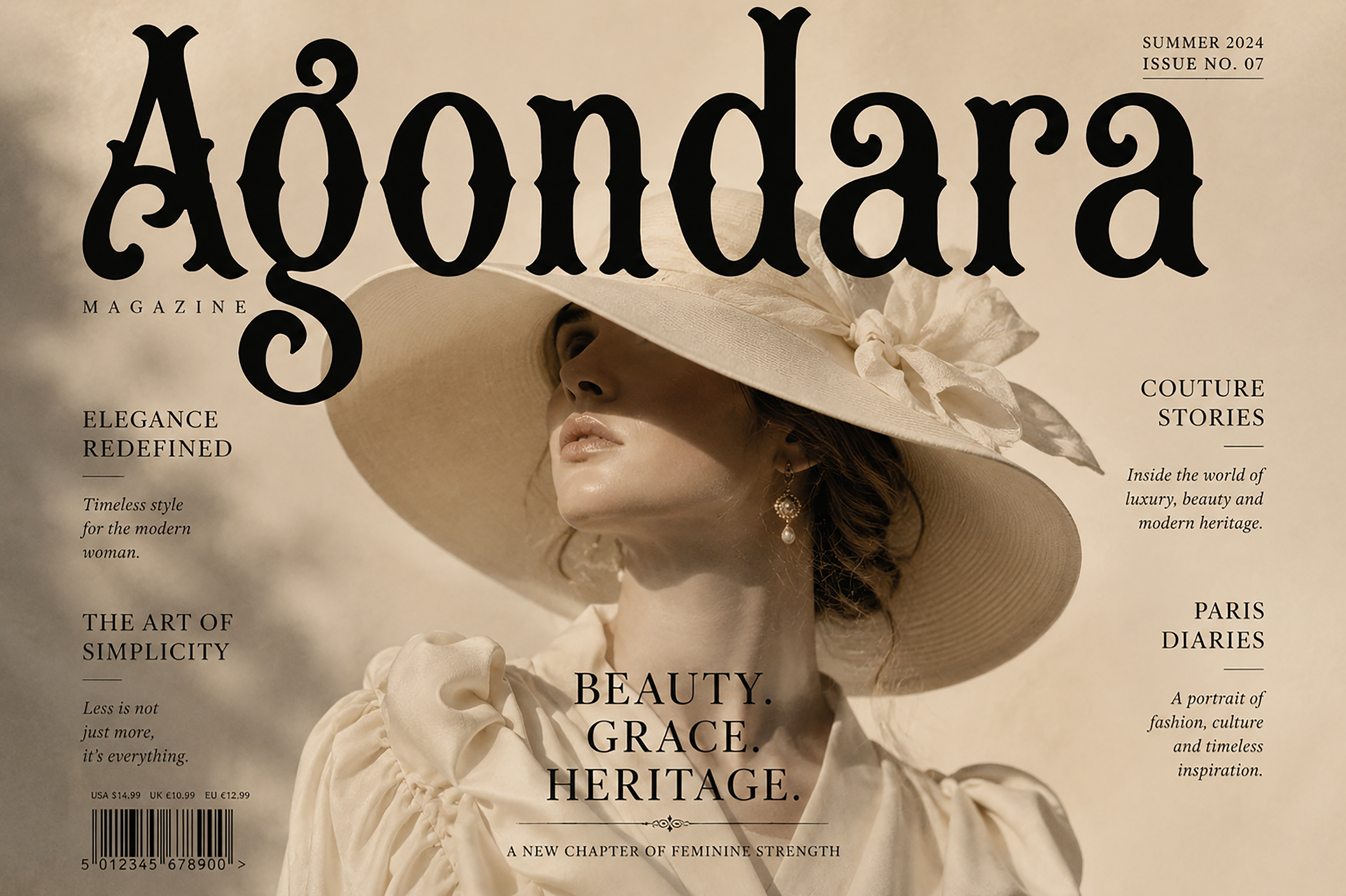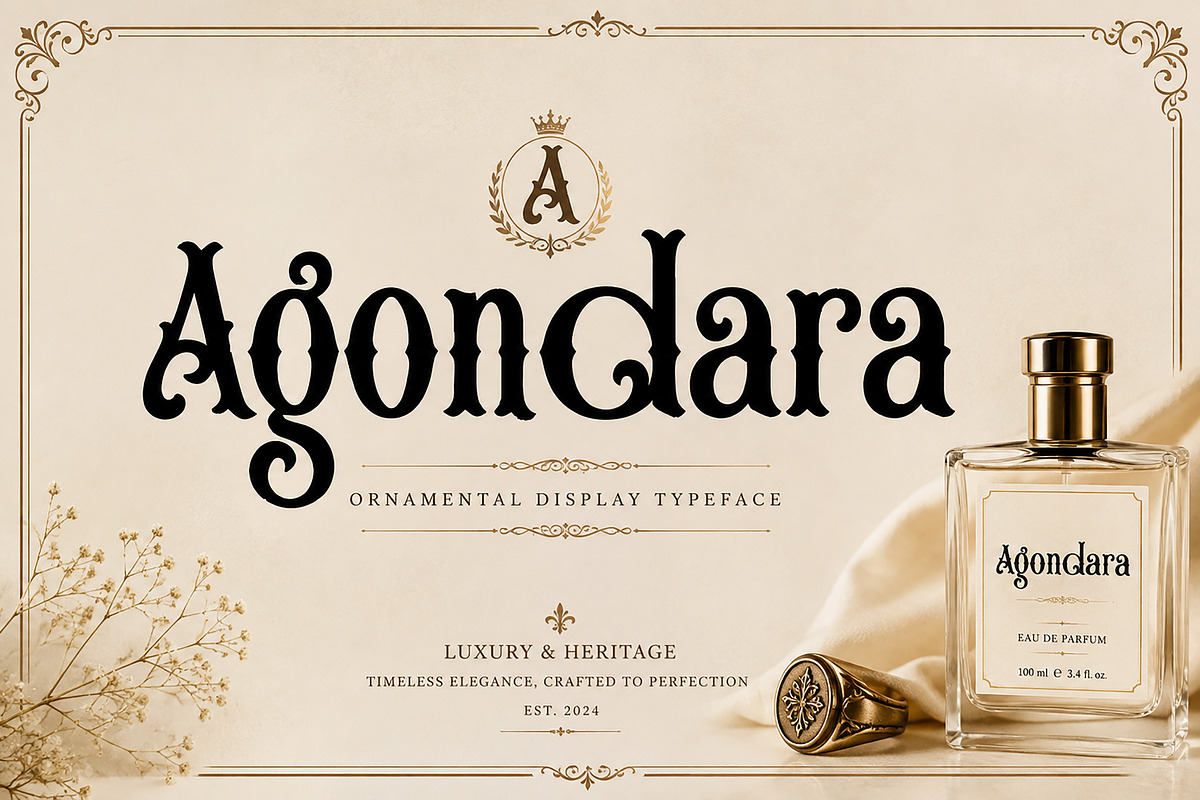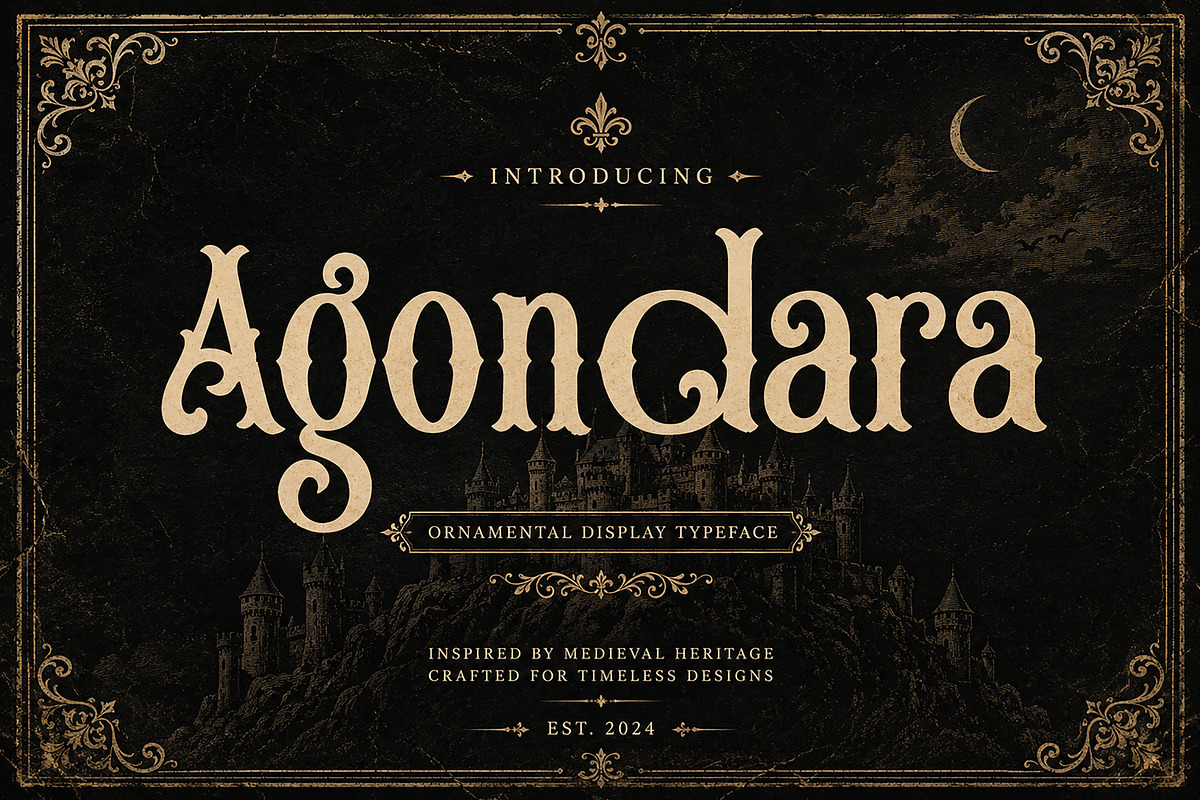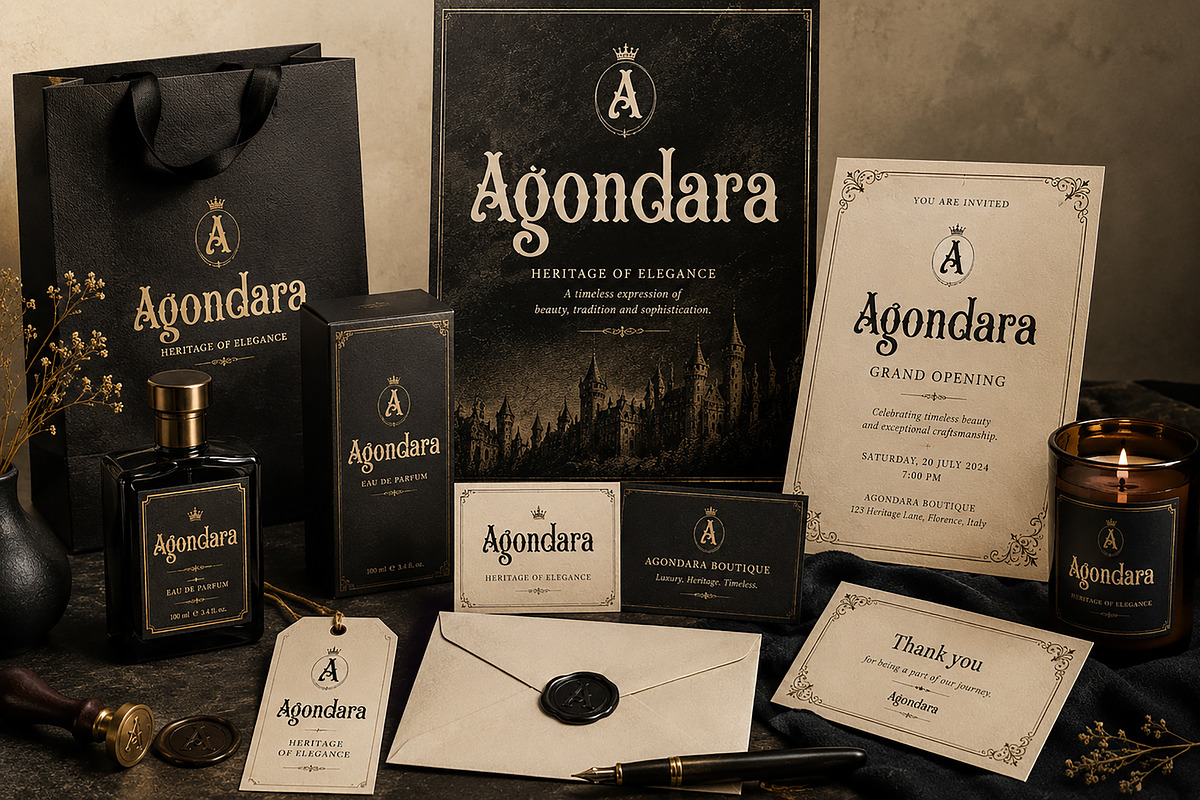
Agondara – Gothic Display Font
Agondara – Ornamental Gothic Display Font
Agondara is an elegant ornamental display font inspired by vintage gothic typography, medieval aesthetics, and timeless luxury. With its distinctive decorative forms, dramatic curves, and sophisticated character, Agondara brings a strong sense of heritage and elegance to your designs.
Perfect for creating memorable luxury branding, logos, fashion identities, vintage posters, editorial designs, packaging, invitations, labels, album artwork, product designs, and gothic-inspired projects.
Its bold and decorative appearance makes Agondara especially suitable for designs that need a sophisticated, historical, mysterious, or premium visual personality.
Luxury Branding & Logos
Fashion & Editorial Design
Vintage Posters
Gothic & Medieval Designs
Boutique Branding
Perfume & Cosmetic Packaging
Invitations & Stationery
Product Labels & Packaging
Album & Music Artwork
Book & Cover Design
Heritage & Artisan Brands
Decorative Headlines
Creative Display Typography
Agondara is designed for designers who want their typography to become the focal point of the composition—bold, ornamental, elegant, and unforgettable.